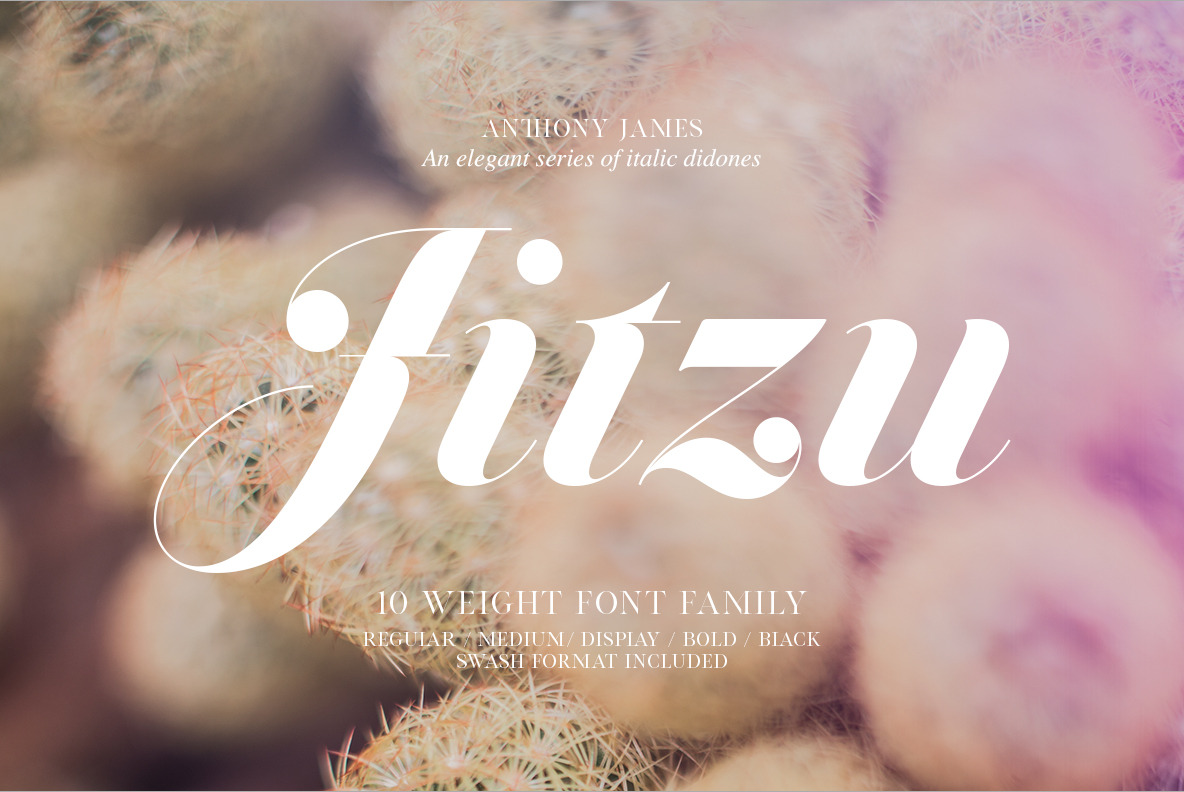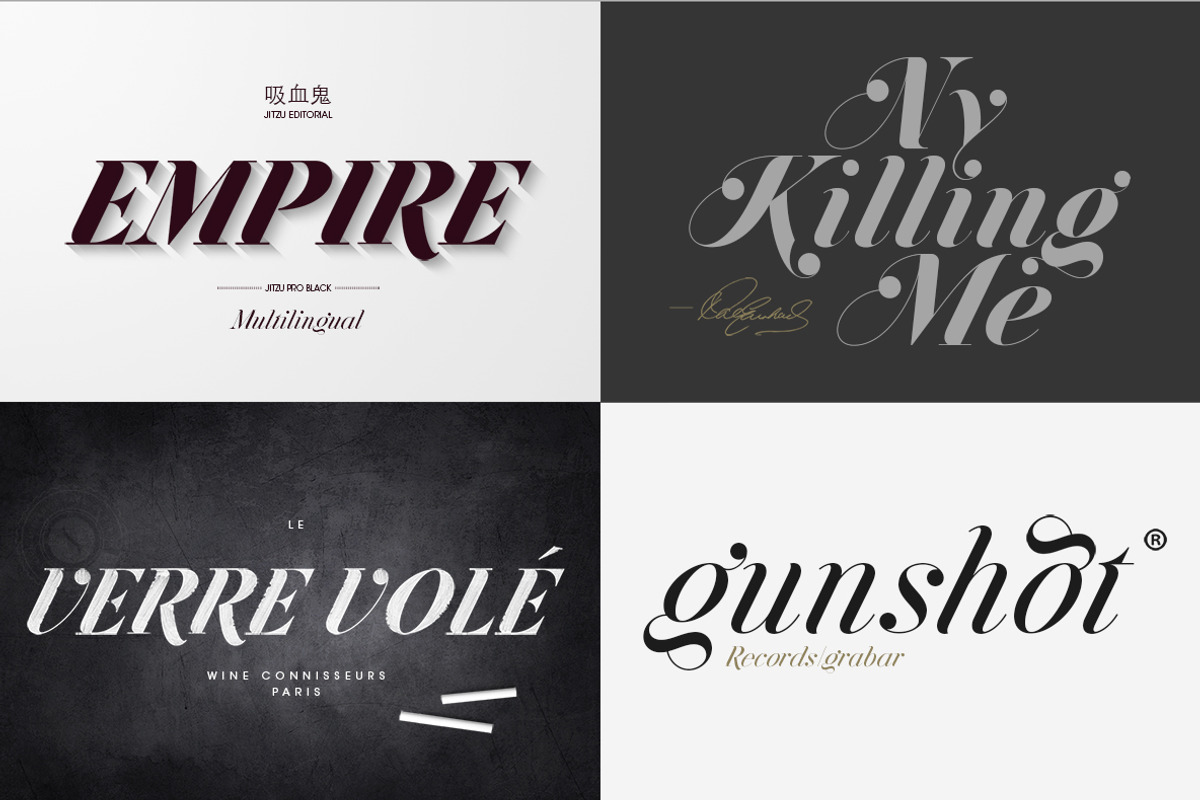
Jitzu Font Family
Jitzu is a Beautiful crafted Italic Didone Font Family, designed with curvaceous elegance in mind. Focusing on a clean and contemporary approach that includes subtle indentations, the parameters and balance remain intact. Whilst Jitzu Swash blends calligraphy and legibility.
Both styles include a Display weight, to achieve maximum aesthetics when used for headlines or larger text formats. Consisting of multiple styles and 10 weights, it is well equipped with many Opentype features such as alternate glyphs, swashes, standard/discretionary ligatures, ordinals. Multilingual with nearly 4000 Glyphs.